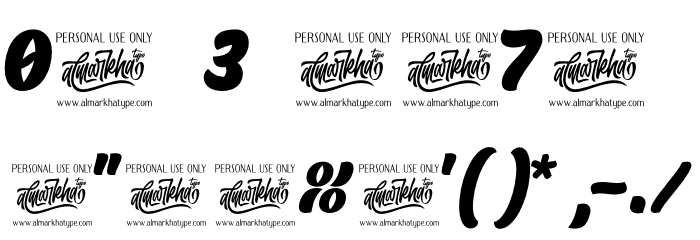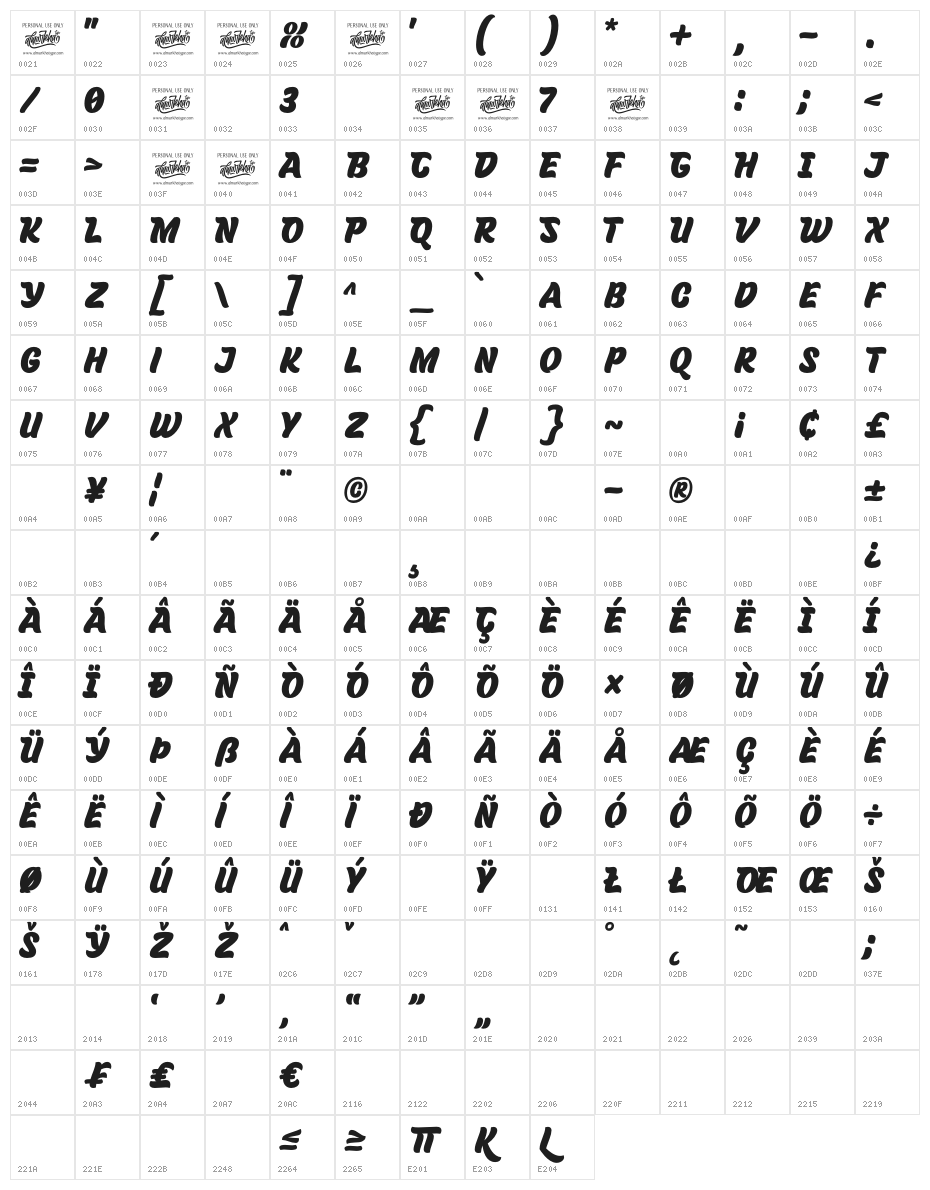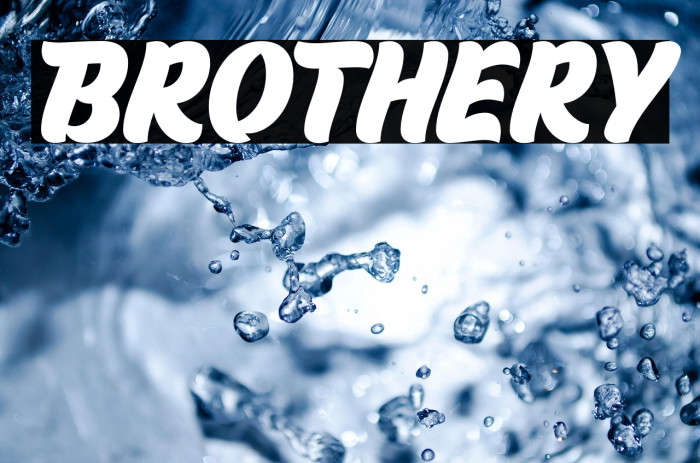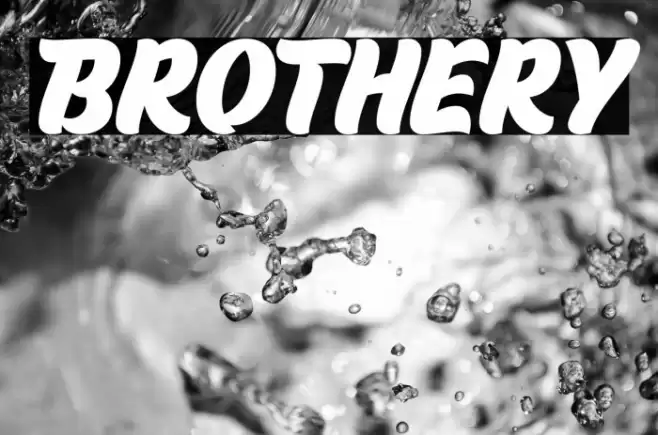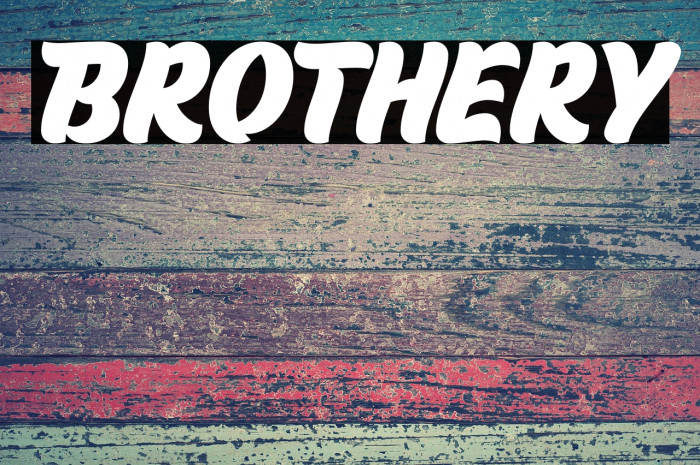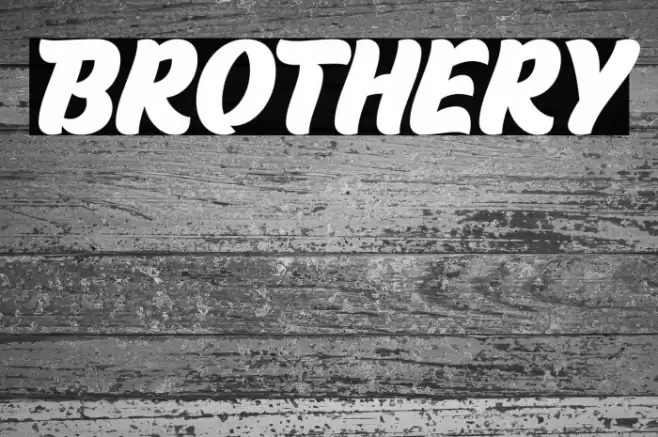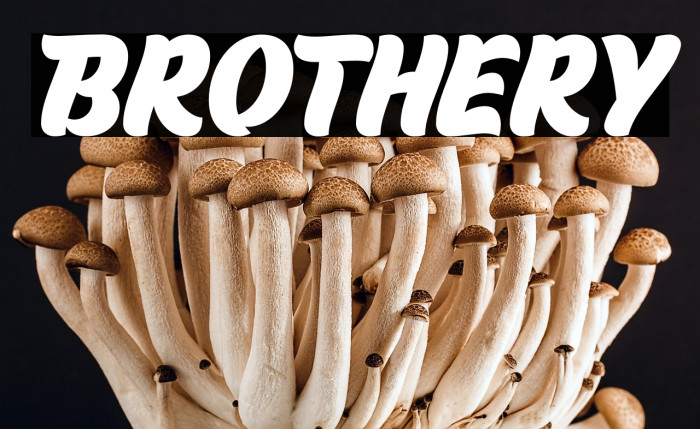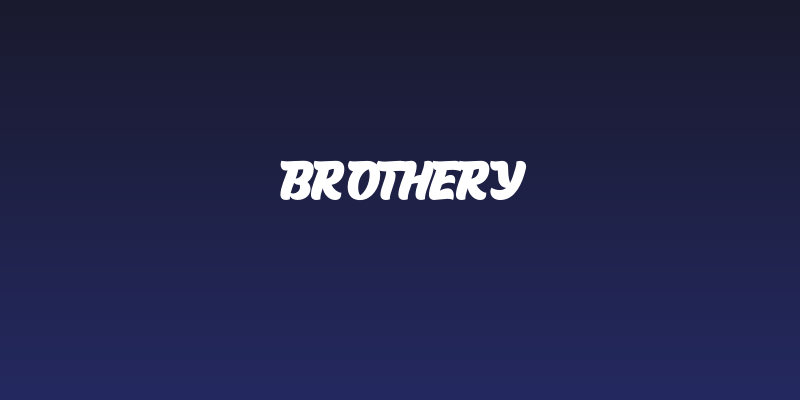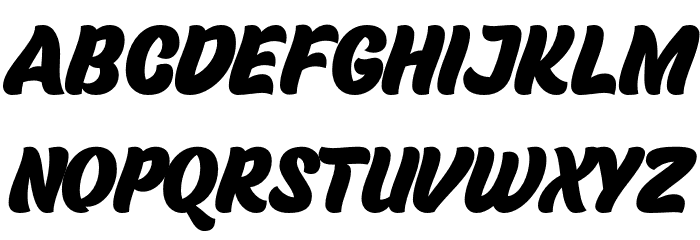
Brothery Font
Brothery Description
This font features a bold and dynamic script style with a strong presence. The characters are designed with a smooth, flowing appearance, giving it a sense of movement and energy. The uppercase letters are particularly striking, with exaggerated curves and a slightly condensed form that enhances their boldness. The lowercase letters maintain a consistent style, complementing the uppercase with their rounded and connected forms. The numerals and special characters follow the same aesthetic, ensuring a cohesive look across all text. This font is ideal for creating impactful designs that require a touch of elegance and flair.